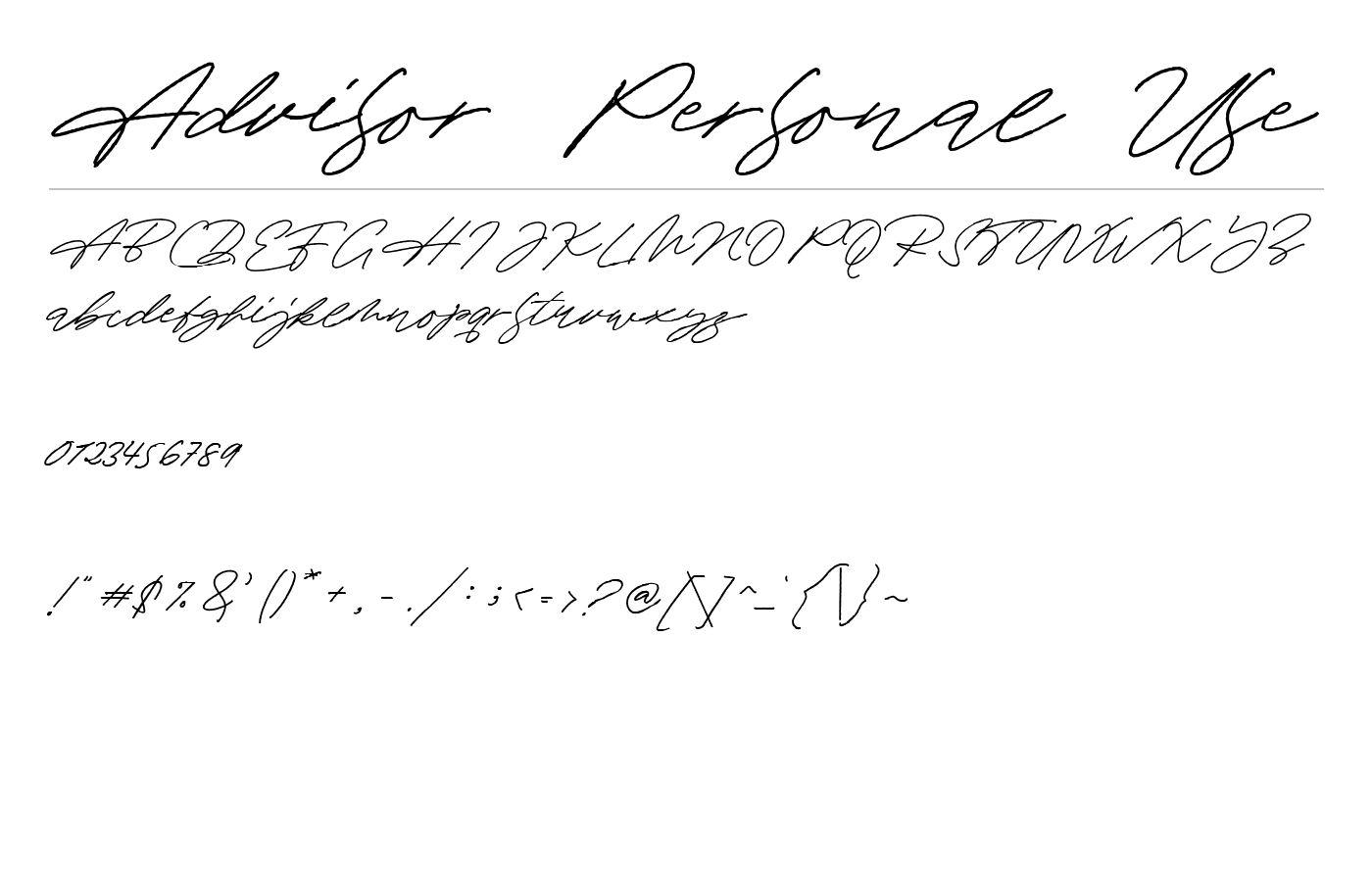
Advisor Personal Use is a delicate, handwritten script font that exudes a natural and elegant charm. Its slender, flowing strokes mimic smooth, casual handwriting, making it perfect for personal projects, invitations, and branding that seek a warm and approachable yet refined feel. This font works beautifully in designs that require a personal touch with graceful style.
Advisor Personal Use Font
About Advisor Personal Use Font